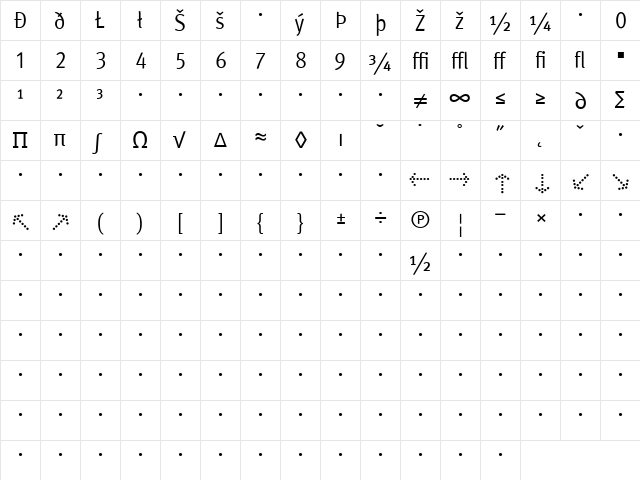
MetaCondNormal Normal
Design Context for MetaCondNormal Typeface
MetaCondNormal is a composed and adaptable typeface that performs quietly and consistently across a wide range of design contexts. Its narrow stance lets it pack a punch even in space-constrained designs.